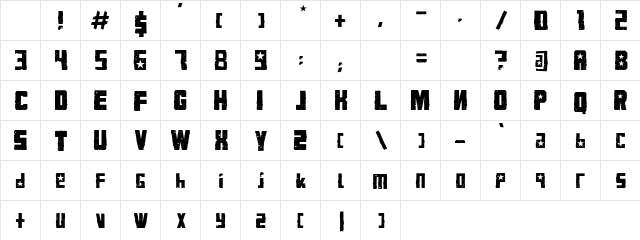
Complete VKB KonQa Bold glyph index. Displaying only characters natively supported by VKB KonQa Bold font.
VKB KonQa is a composed and adaptable typeface that performs quietly and consistently across a wide range of design contexts. Its bold stroke weight gives it real presence on the page.